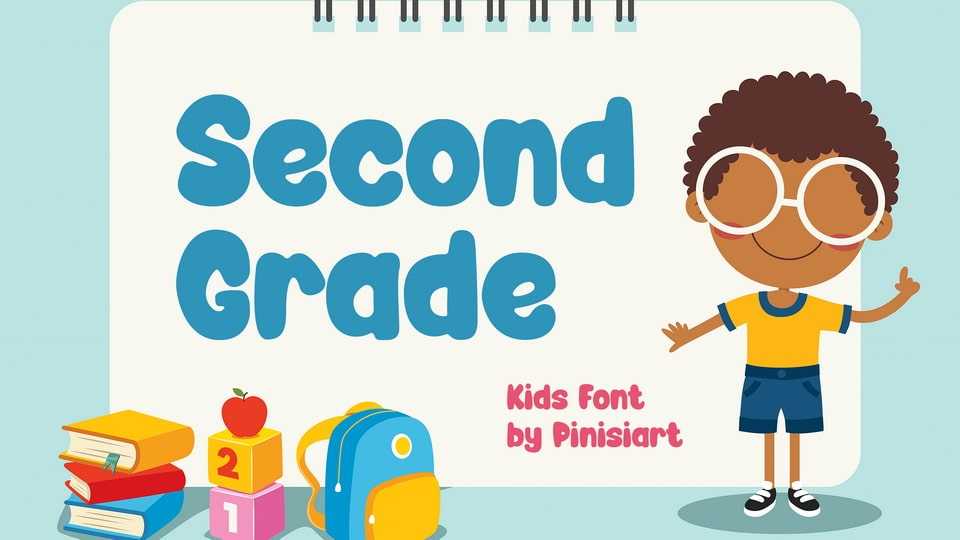
Download Second Grade font, a funny kids typeface. Cute and friendly, with a playful attitude. That’s what Second Grade will bring to your current project. Just like a second grader will do.